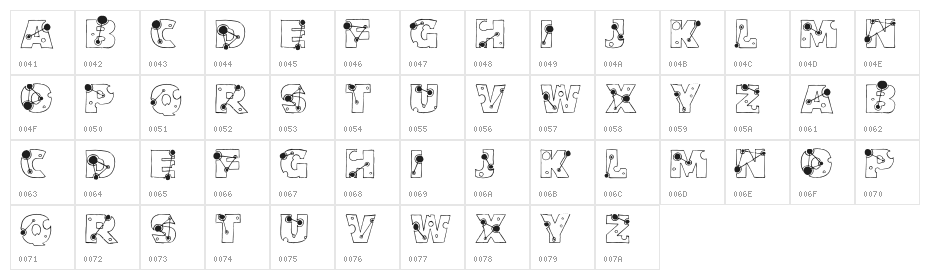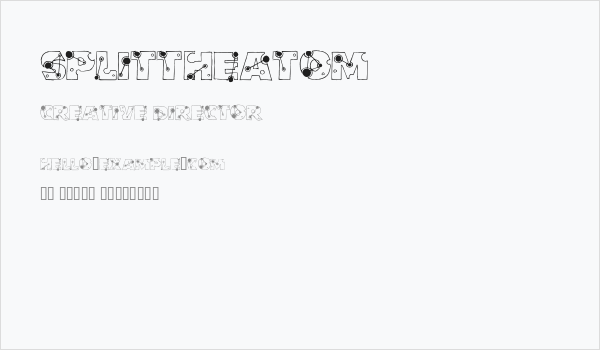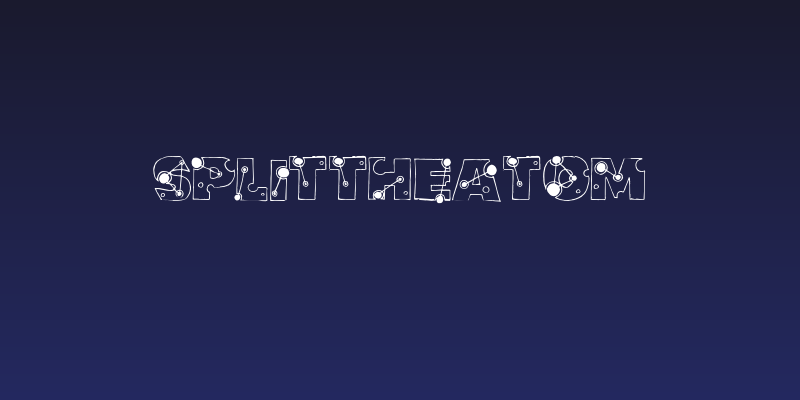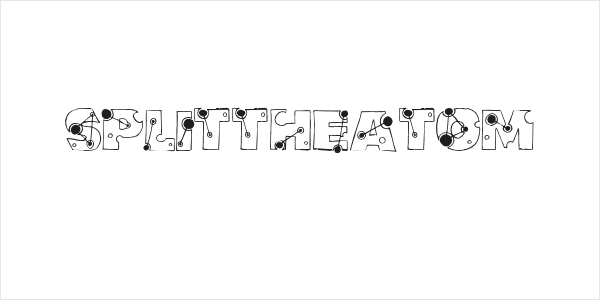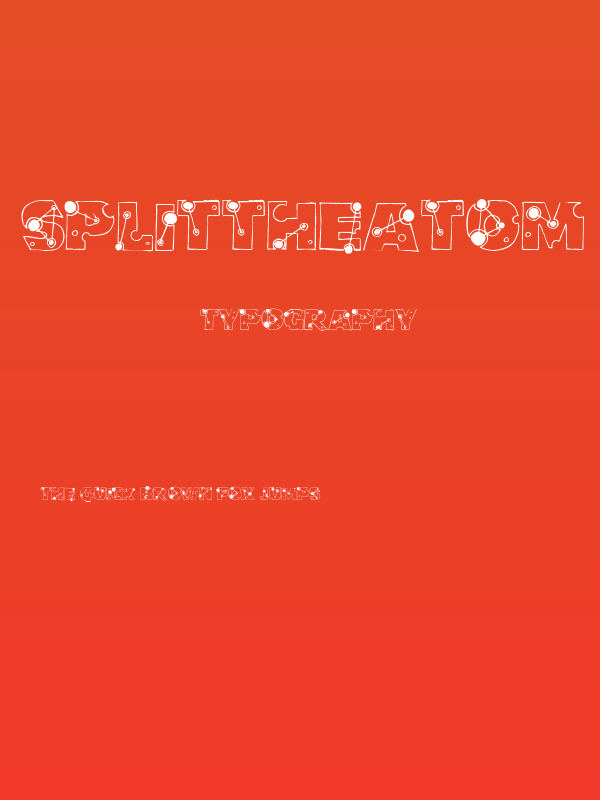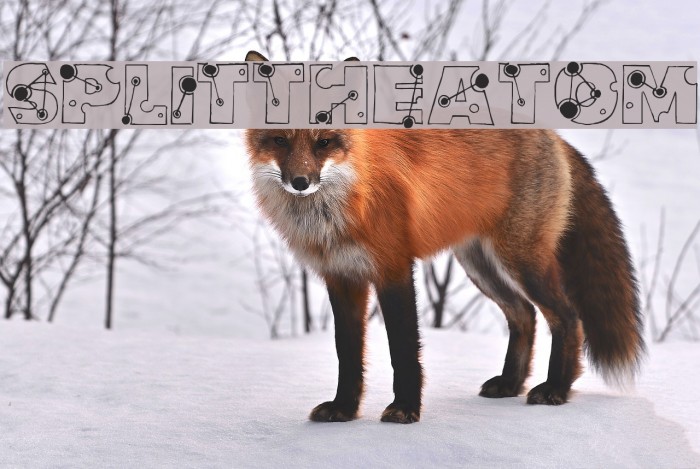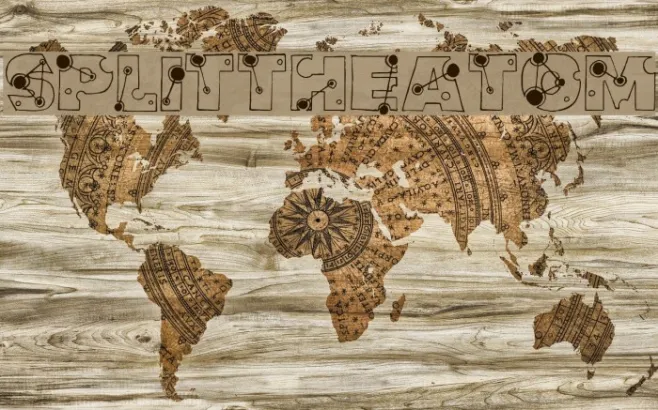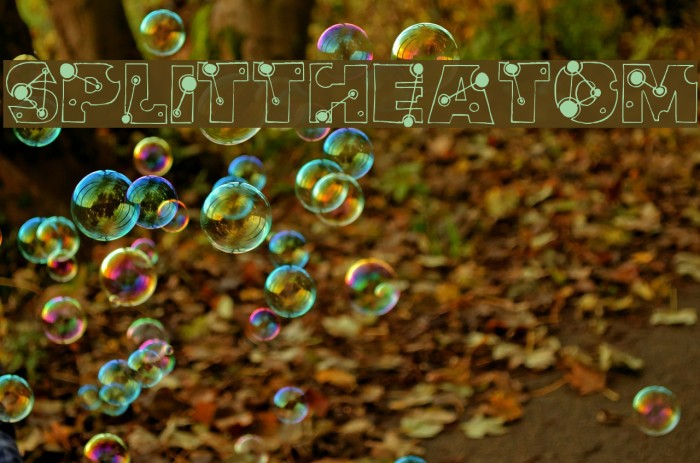
SplitTheAtom Font
SplitTheAtom Description
This font features a unique and creative design, incorporating atomic and molecular motifs within the structure of each letter. The characters are bold and geometric, with intricate details that resemble scientific diagrams. The uppercase letters are adorned with circles and lines that mimic atomic structures, giving the font a futuristic and scientific aesthetic. The overall style is decorative and eye-catching, making it suitable for projects that require a modern and innovative look. The font's distinct appearance makes it ideal for use in science-related themes, educational materials, or any design that seeks to convey a sense of discovery and exploration.
| Proposed Projects | Science posters, educational materials, futuristic branding, tech event flyers. |